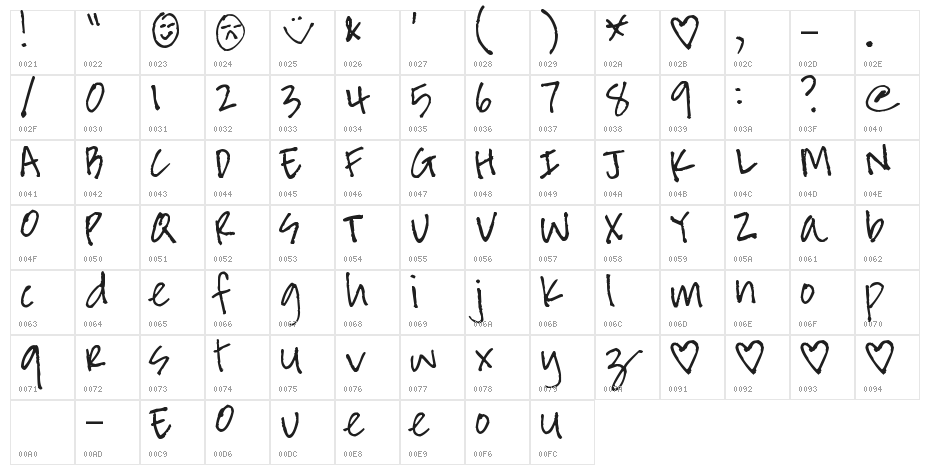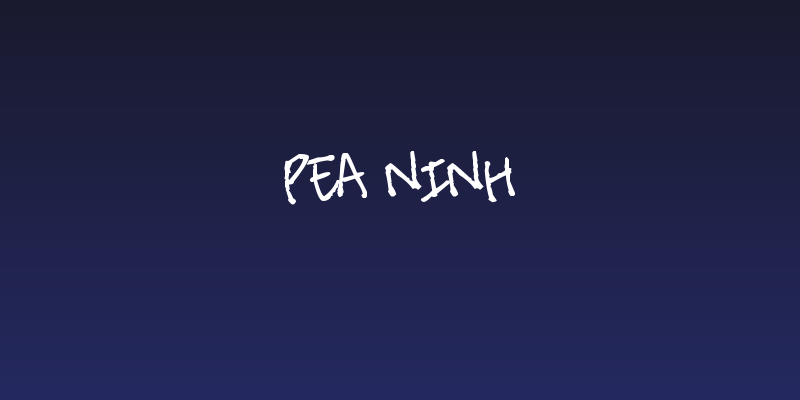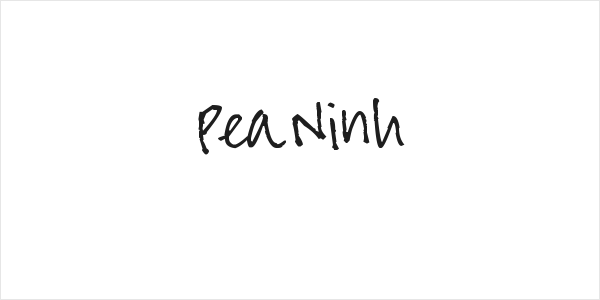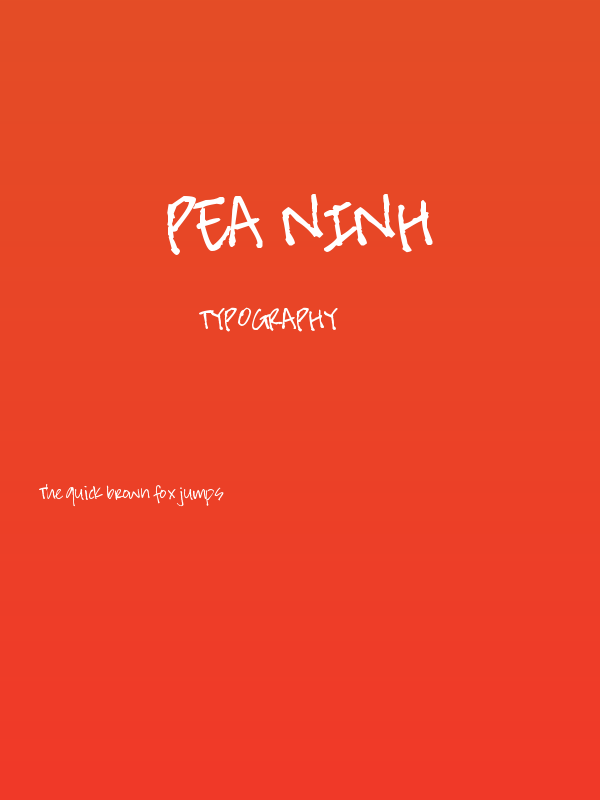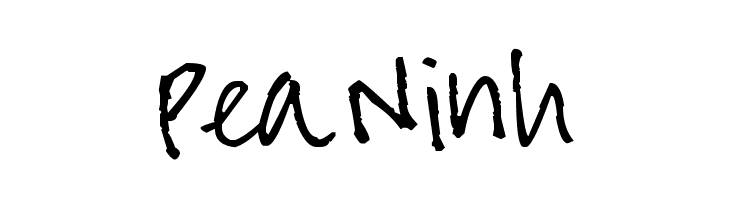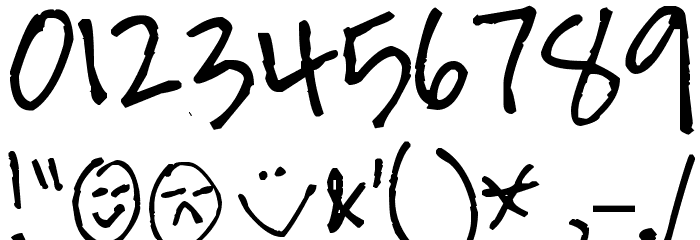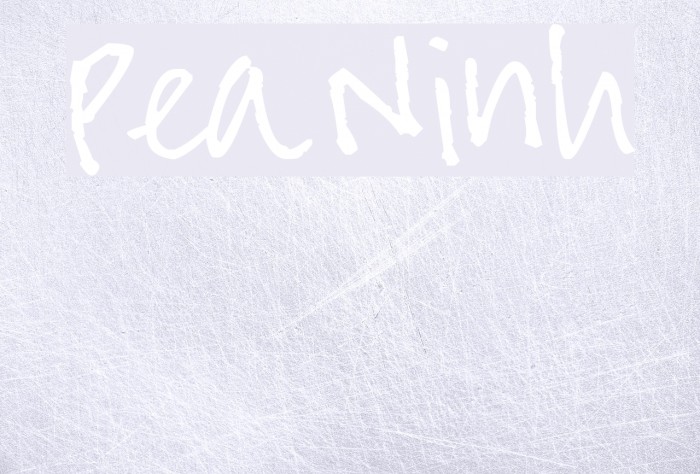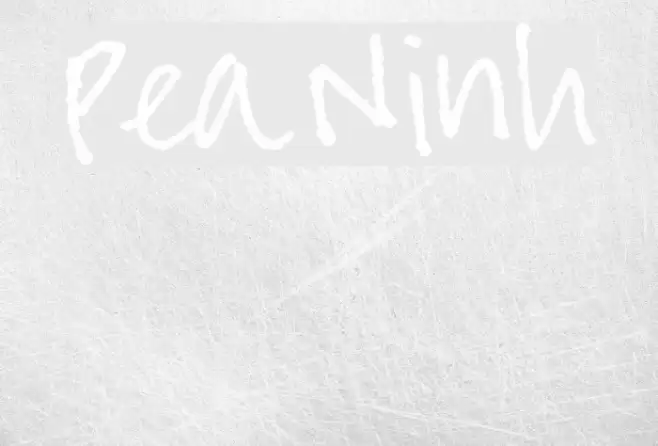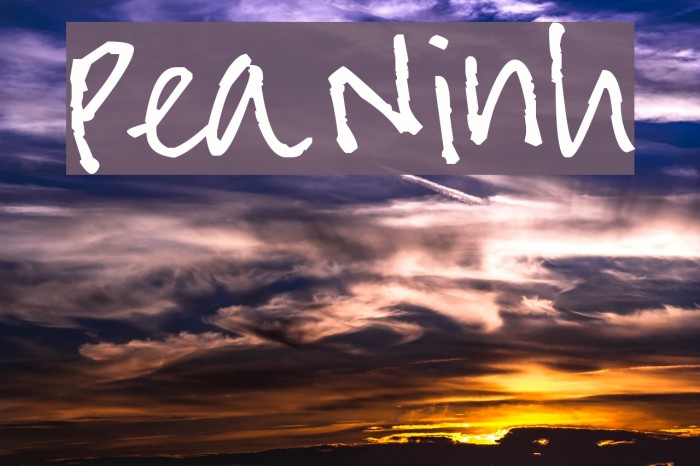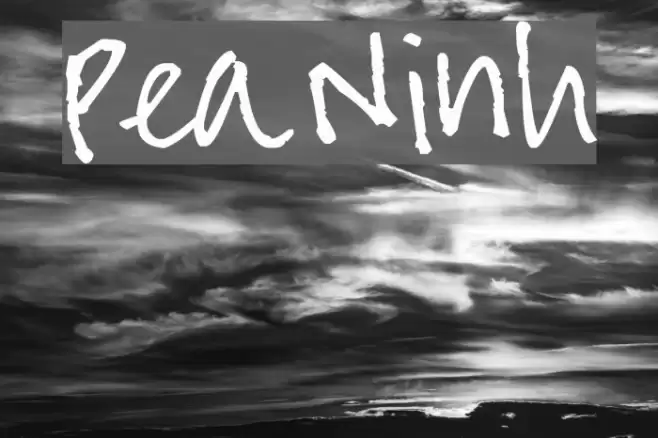
Pea Ninh Font
Pea Ninh Description
This font exudes a playful and casual handwritten style, characterized by its uneven strokes and organic flow. The letters vary in size and angle, giving it a dynamic and lively appearance. The uppercase and lowercase letters maintain a consistent style, with a slightly exaggerated slant that adds to its informal charm. The numbers and special characters follow the same handwritten aesthetic, making it suitable for projects that require a personal touch. Its overall look is reminiscent of quick, expressive handwriting, perfect for conveying a sense of spontaneity and creativity.